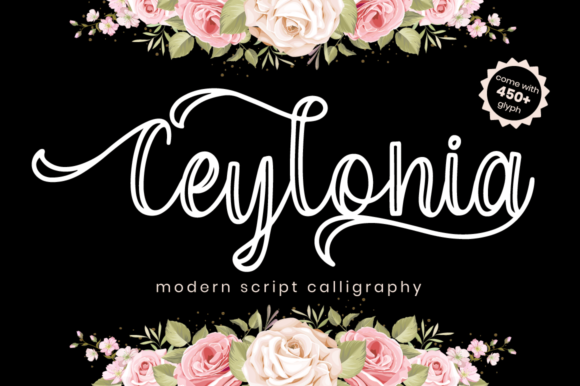
Indulge in the Enchanting World of Ceylonia Font: Where Beauty and Creativity Unite
Immerse yourself in the realm of Ceylonia Font, an exquisite script font family that will ignite your creativity and transform your designs into captivating works of art. Inspired by the timeless elegance of outline lettering, Ceylonia offers an array of six stylistic sets, each possessing its own unique charm and character. Mix and match these sets to unleash a symphony of design possibilities, crafting masterpieces that will leave a lasting impression.
With Ceylonia, you hold the key to unlocking a world of creative expression. Its authentic and heartfelt nature makes it the perfect choice for crafting enchanting wedding invitations, sophisticated stationary art, eye-catching social media posts, and heartfelt greeting cards. Its versatility knows no bounds, making it an indispensable tool for graphic designers, illustrators, and anyone seeking to add a touch of elegance and artistry to their projects.
Let Ceylonia's timeless beauty elevate your designs to new heights. Step into the realm of imagination and let your creativity soar as you bask in the glory of this extraordinary font family. Experience the magic of Ceylonia today and embark on a creative journey that will leave you breathless.